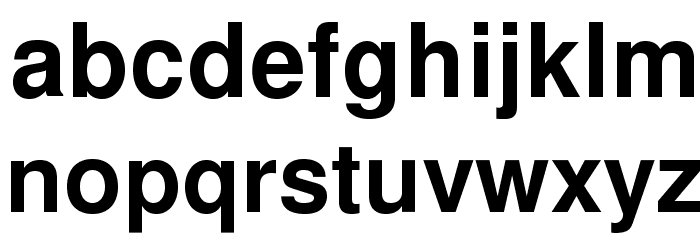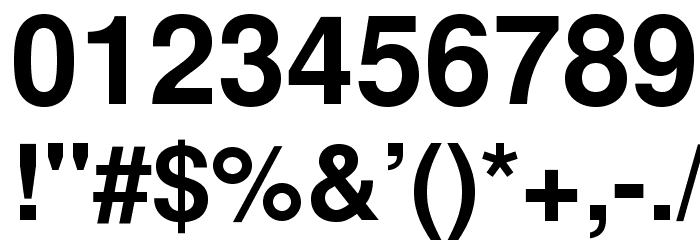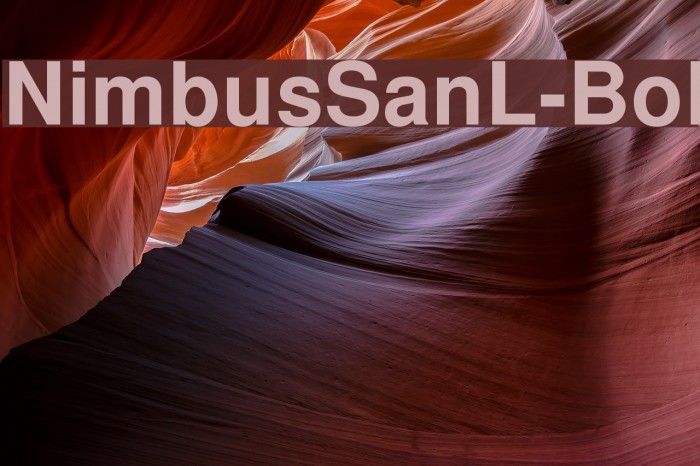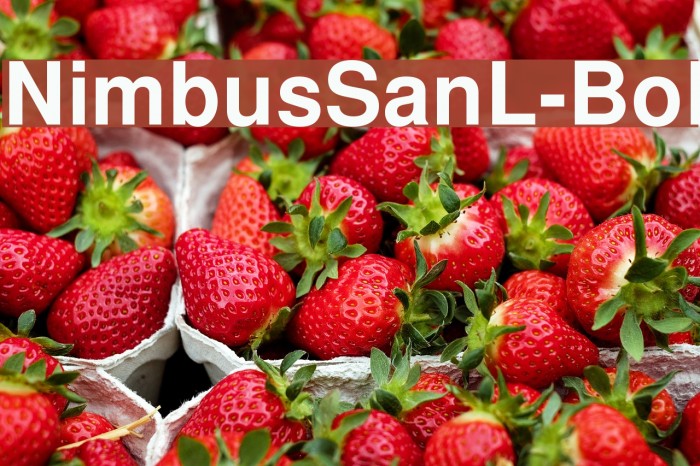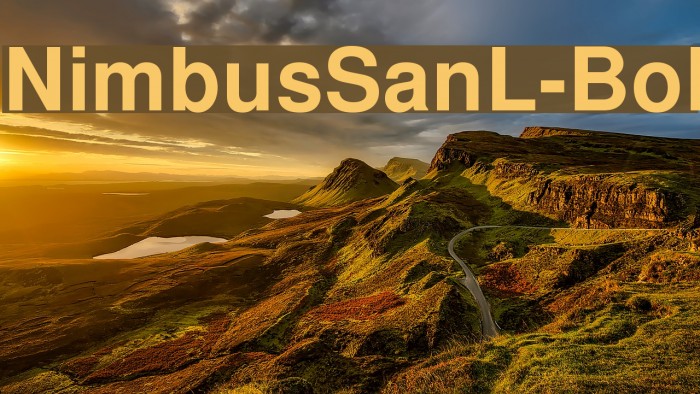
NimbusSanL-Bol Font
This font features a clean and modern sans-serif design with bold, uniform strokes that convey strength and clarity. The uppercase and lowercase letters are well-proportioned, offering excellent readability. The numerals are distinct and balanced, making them ideal for both text and numerical data. Special characters are clearly defined, enhancing the font's versatility. The overall appearance is professional and straightforward, suitable for a wide range of applications.
A bold, modern sans-serif font with excellent readability and versatility.
- Proposed Projects: Ideal for corporate branding, advertising, headlines, and digital interfaces where clarity and impact are essential.
- Use Case: Headlines, Logos, Digital interfaces